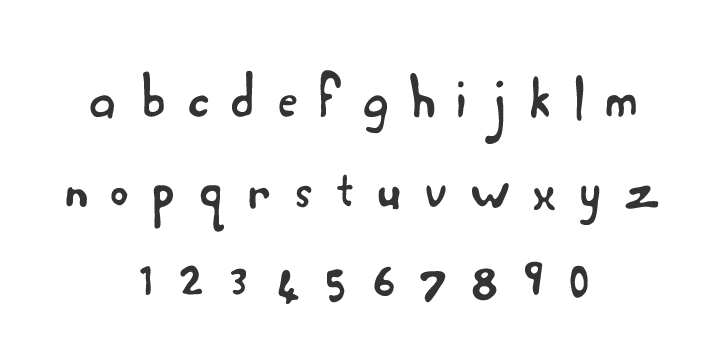
• Hegel™
Hegel is a custom hand-drawn typeface that began as a simple logo and has evolved into much more.
The typeface is ideal for any project that requires a less serious approach.